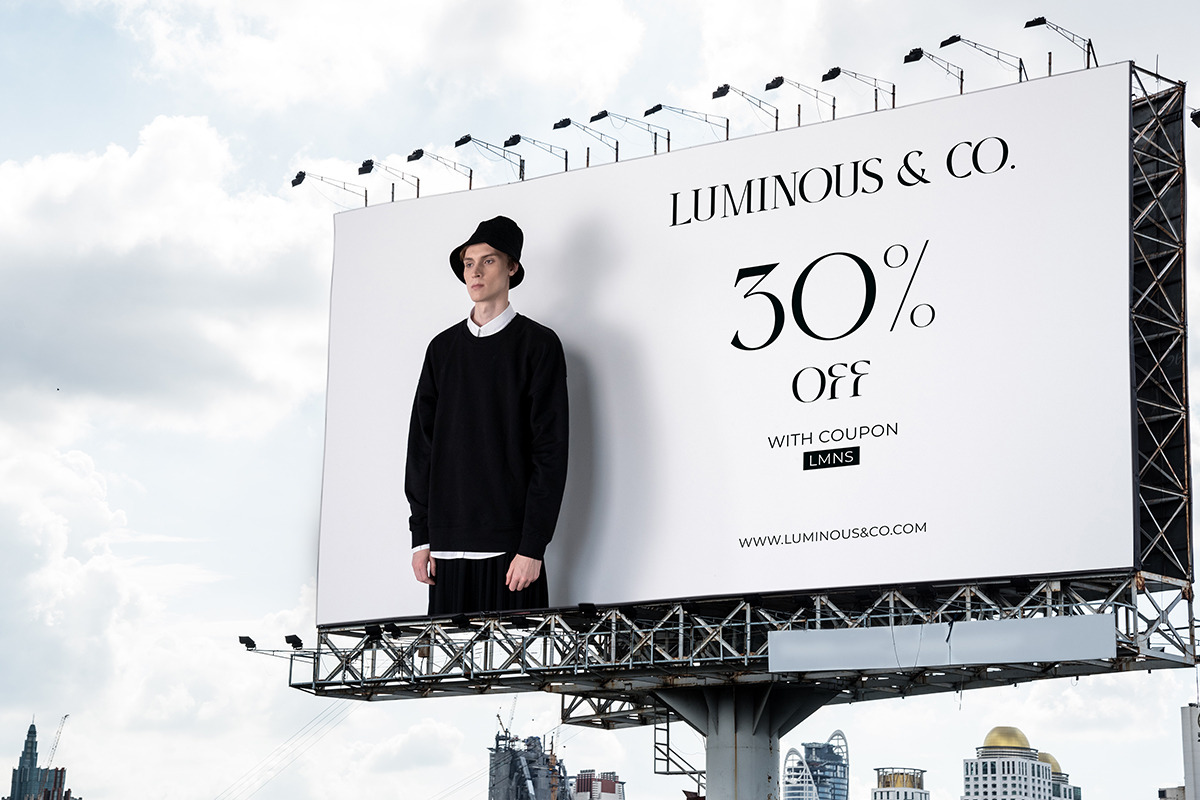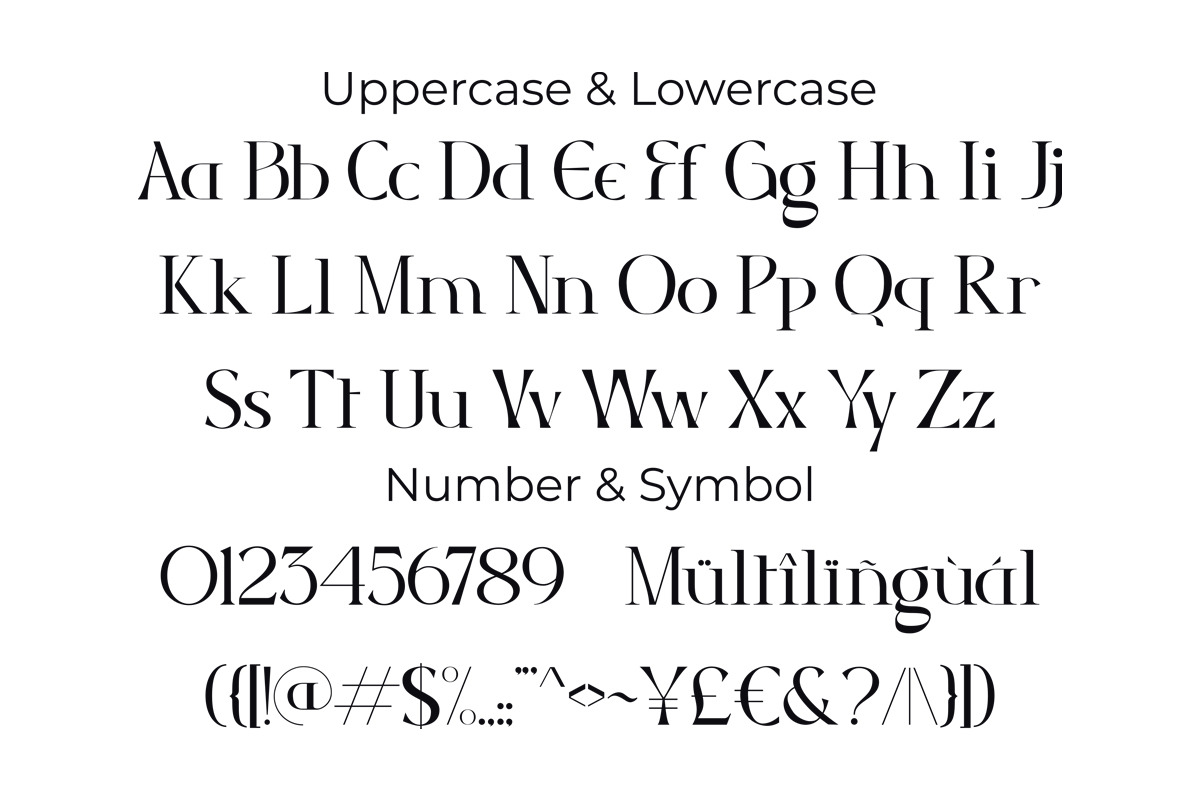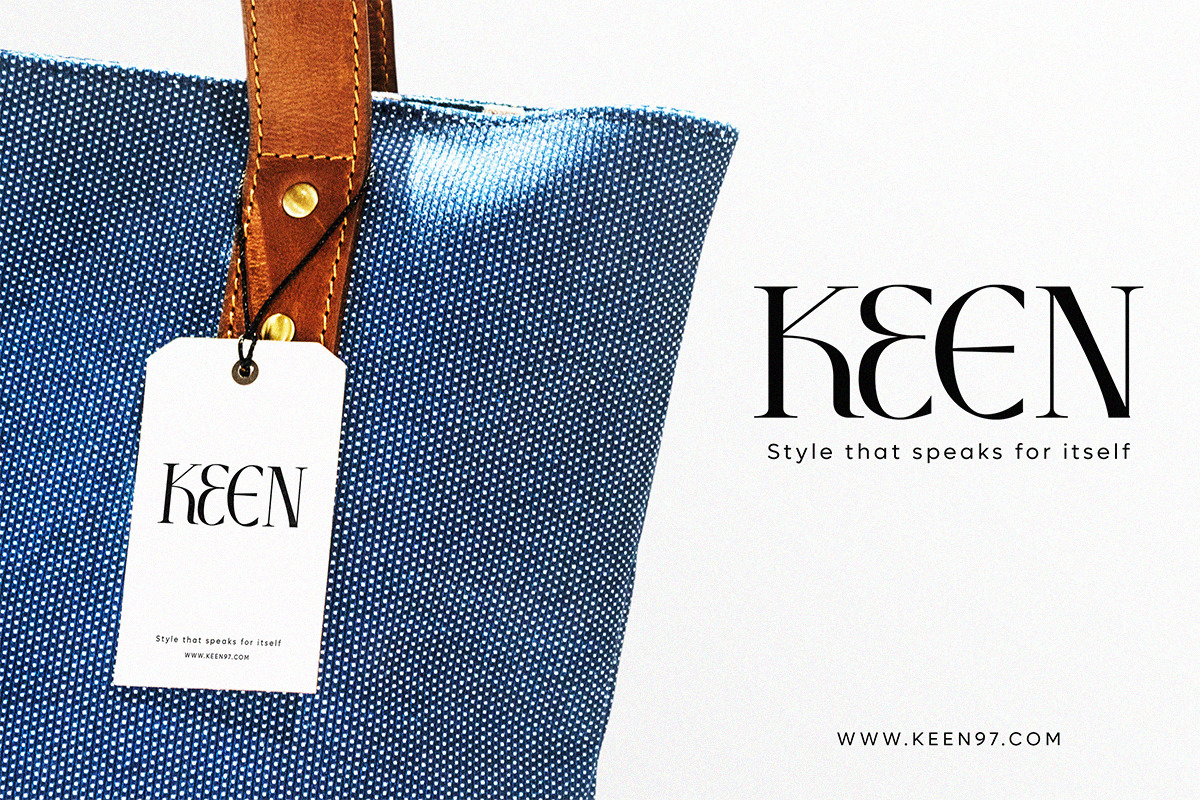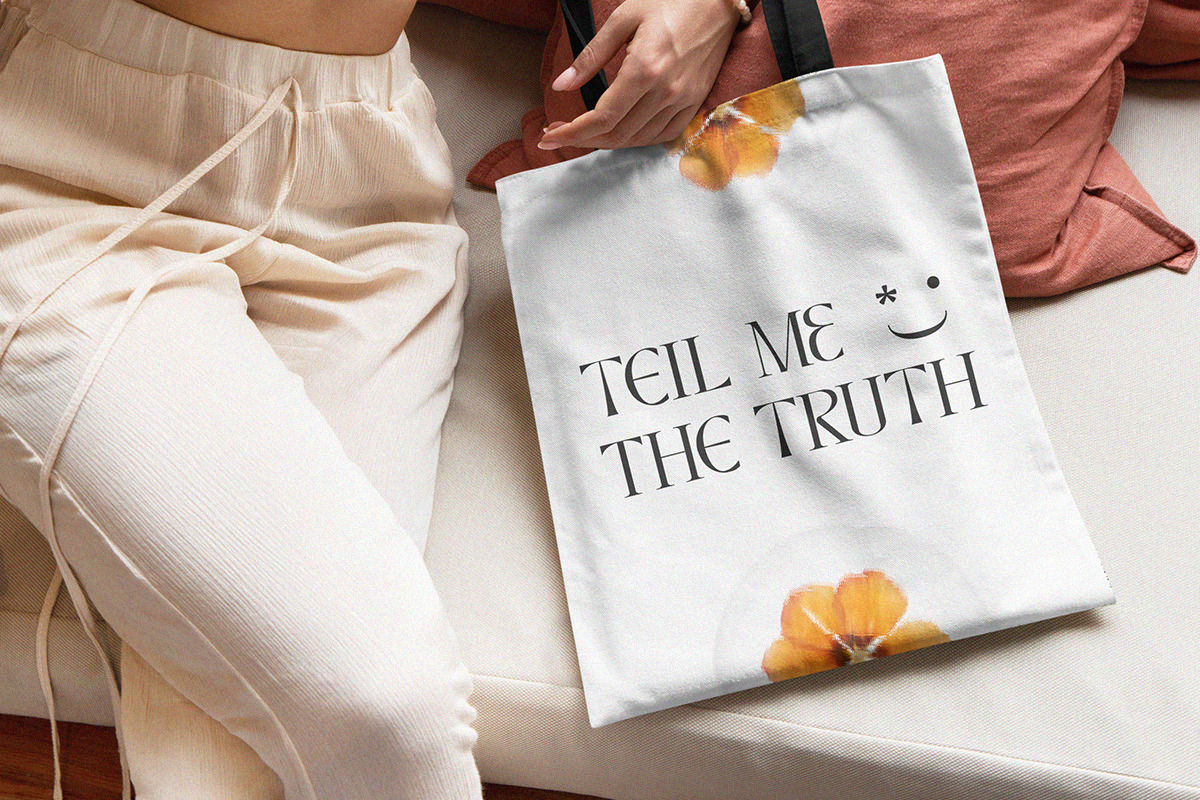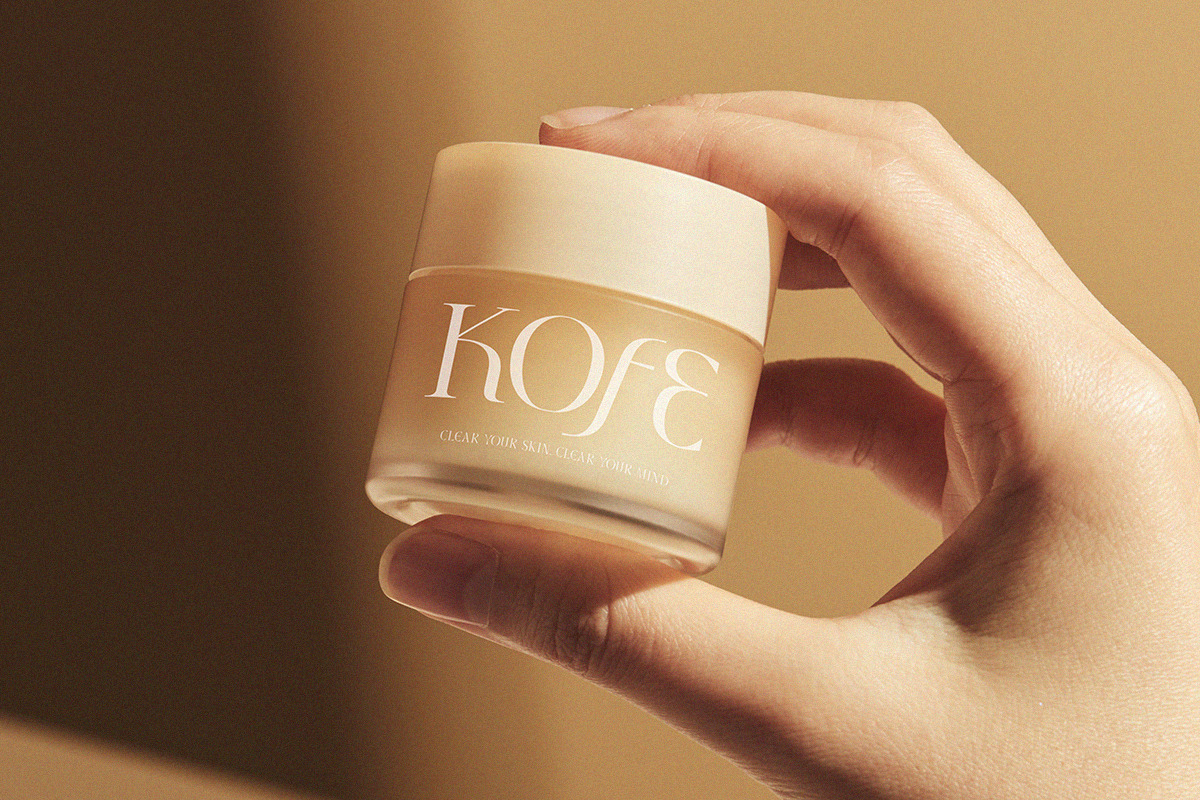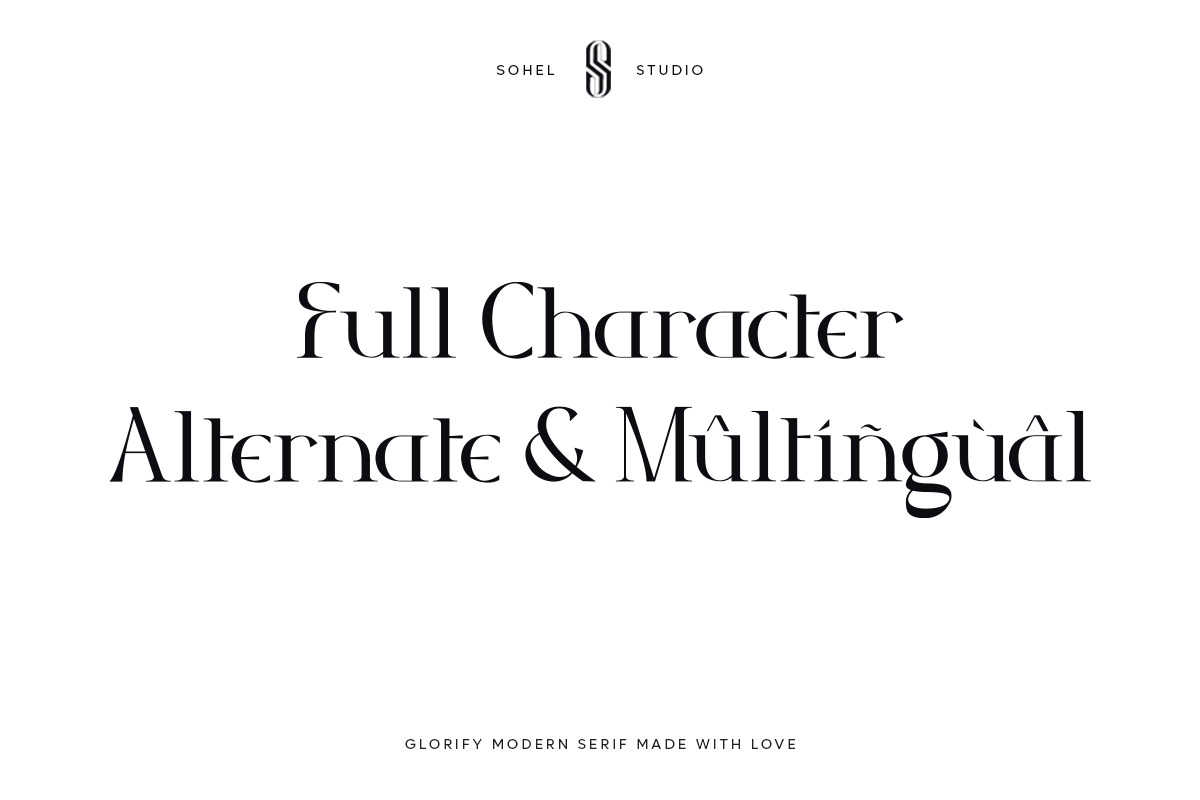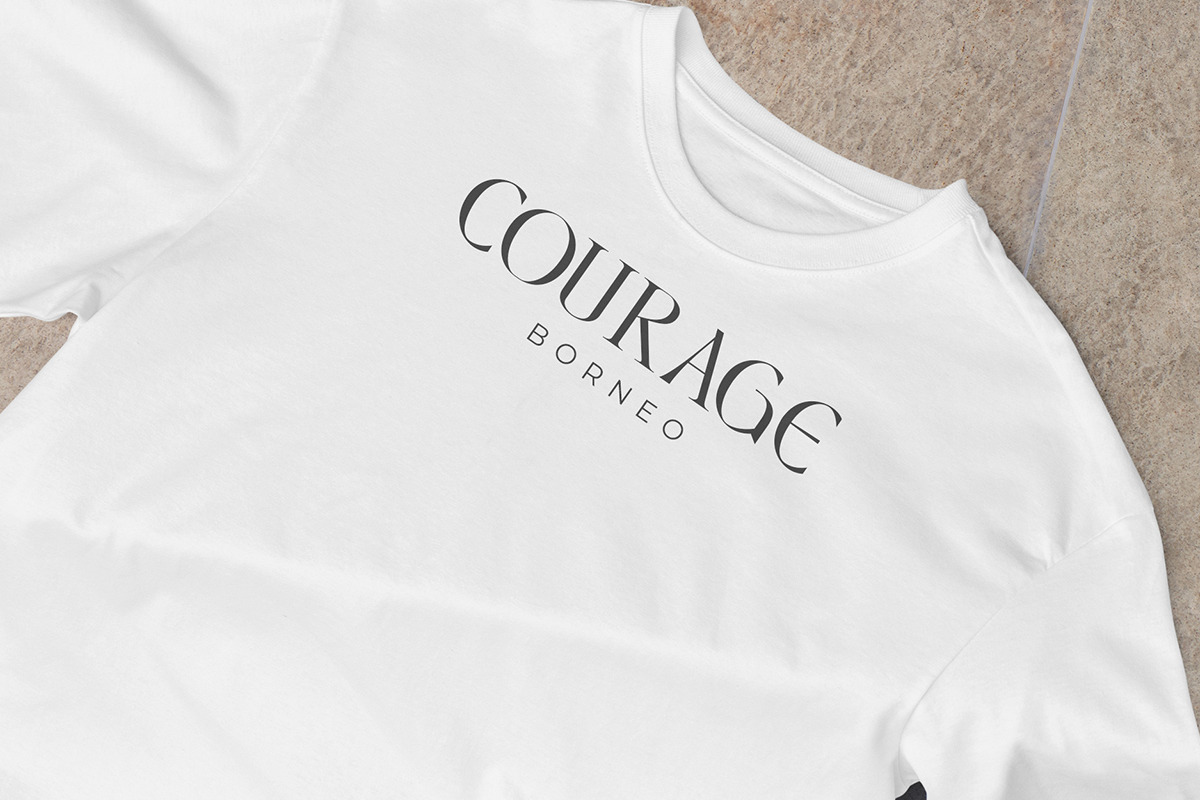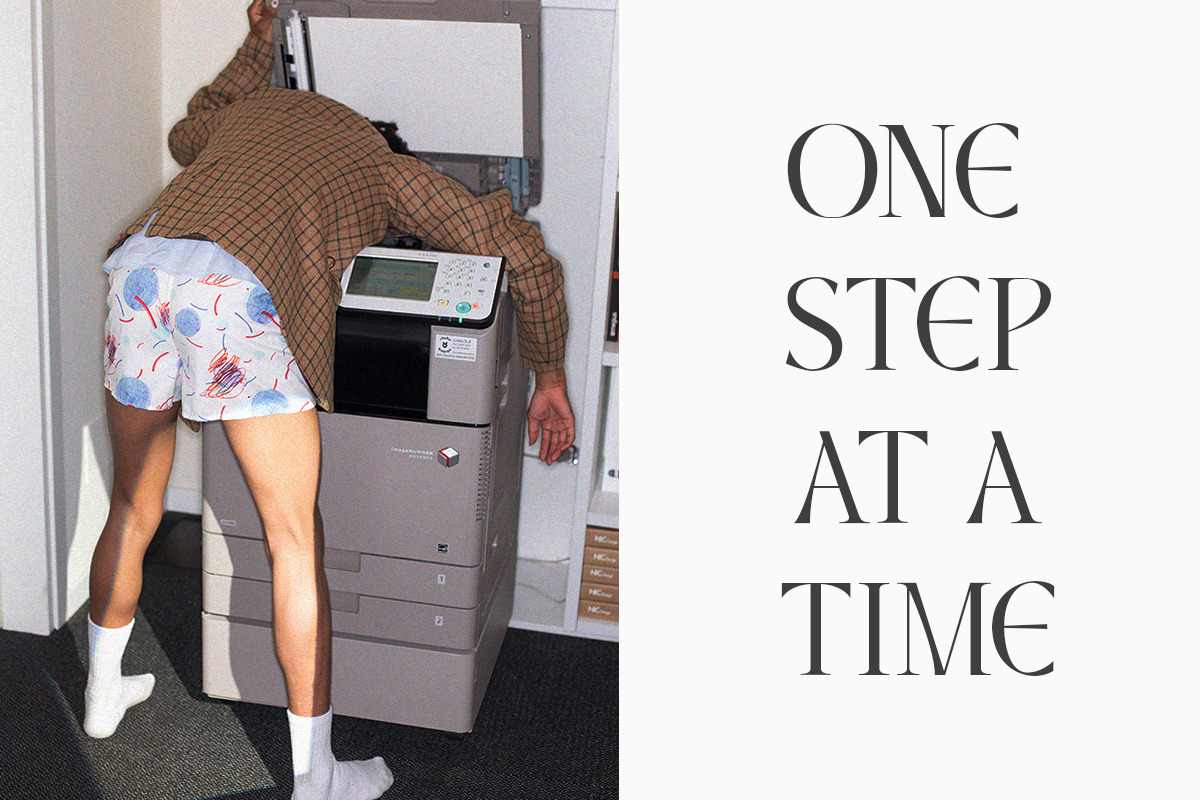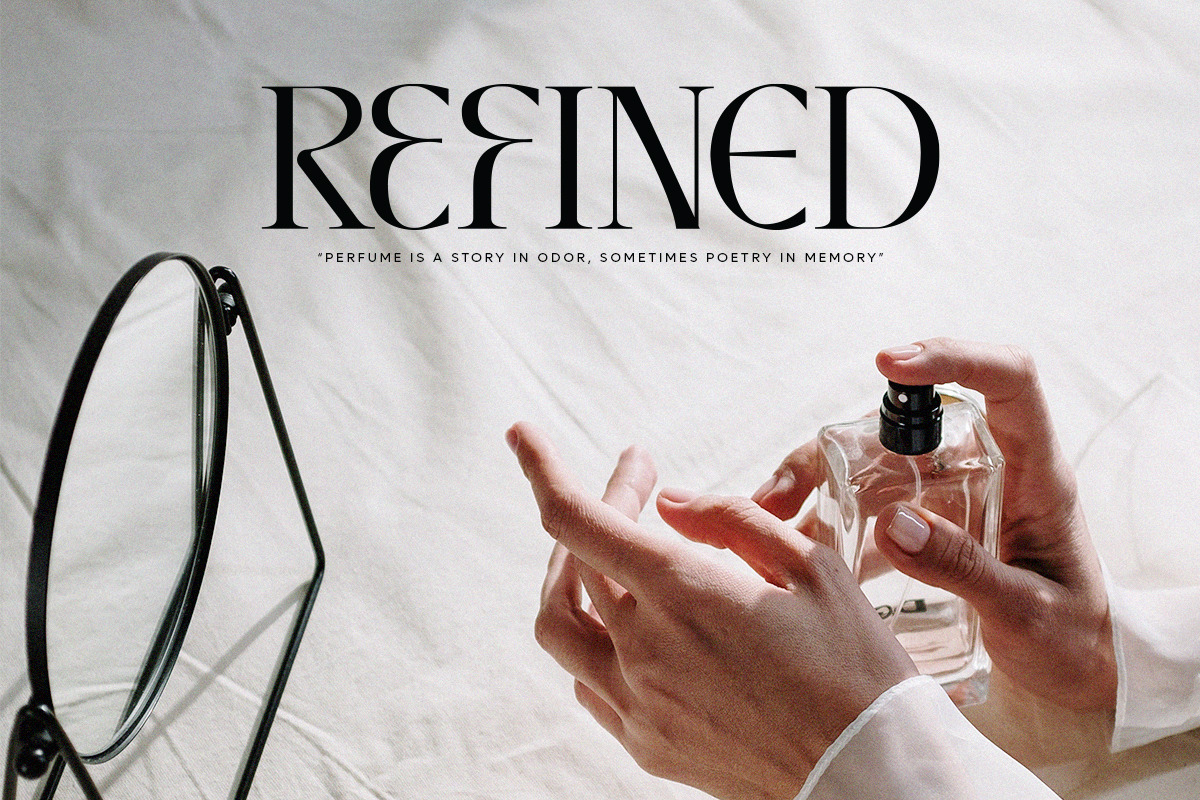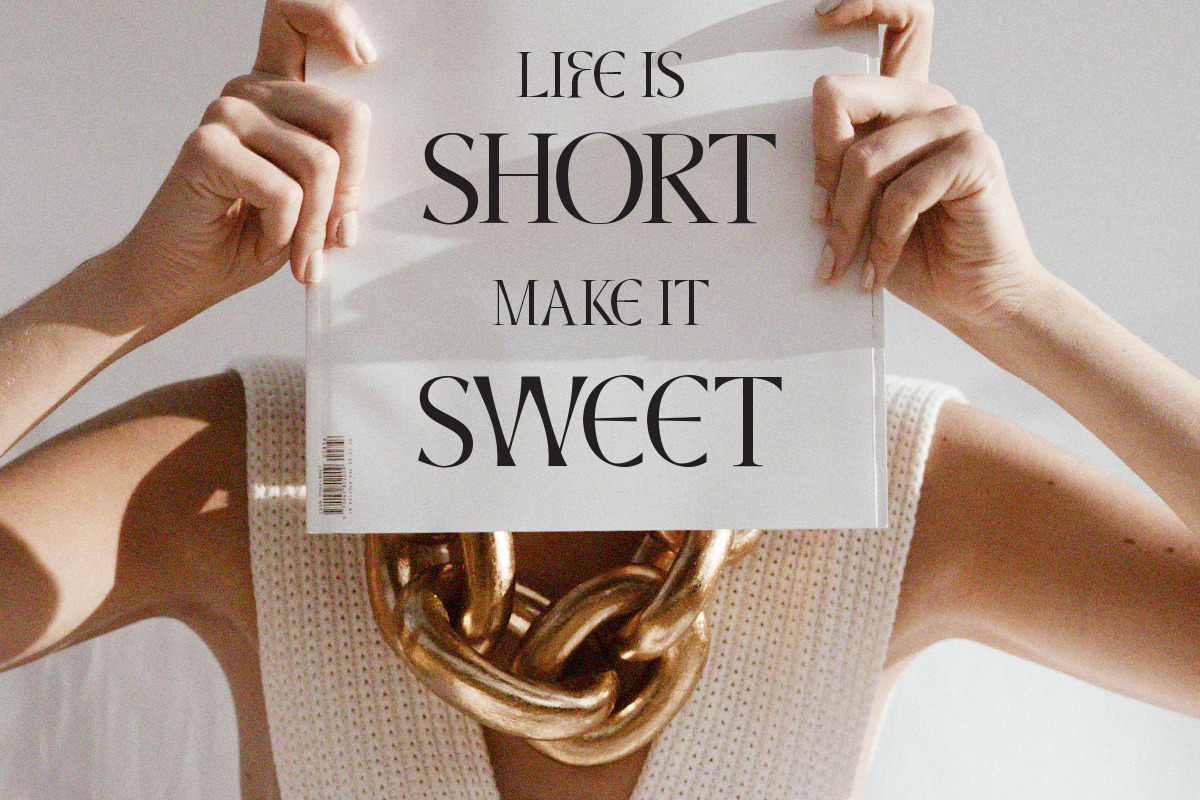
Glorify - Business Branding Serif
Glorify SH is a Modern vintage serif typeface with Unique alternative , multilingual support with perfect kerning. This typeface is perfect for an elegant & luxury logo , classy editorial design, women's magazine, fashion brand , cosmetic brand, fashion promotion , modern advertising design, invitation card, art quote, home decoration , book/cover titles, special events, Tote bag, T-shirt, Advertising and much more.
Glorify SH Features:
- 4 Weights font (Regular, Italic, Outline, Semi Bold)
- Uppercase And Lowercase